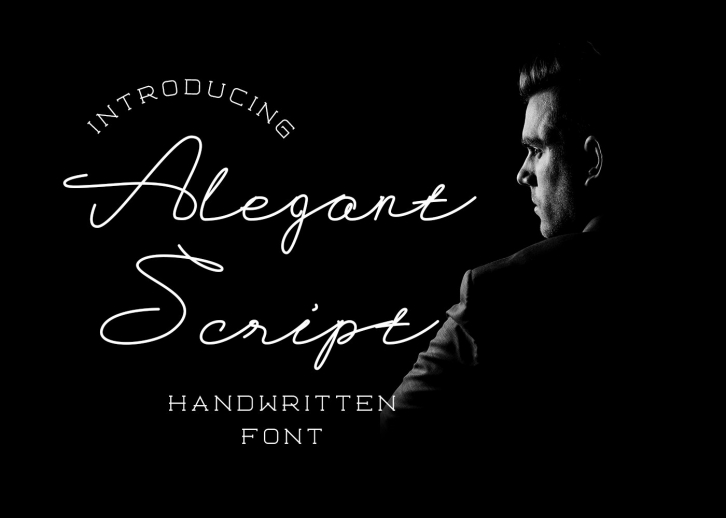
Alegant Script - A handwritten and script style makes elegant, natural, stylish and perfect for any projects that need natural taste. This font is suitable to use for food, wedding, photography and every natural taste project.
- Ton of glyphs (include Uppercase, Lowercase, Numerals & Punctuations, and Ligature)